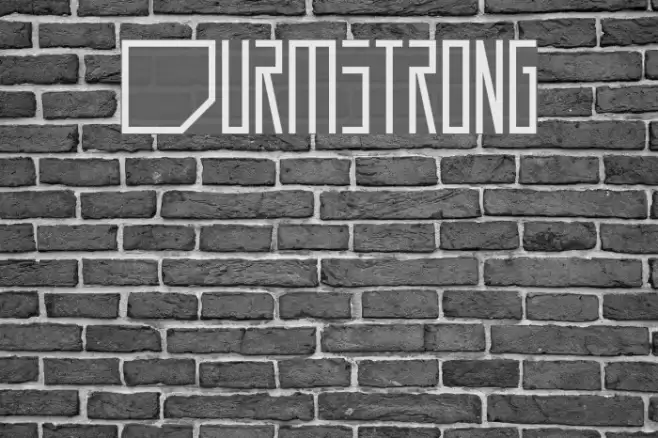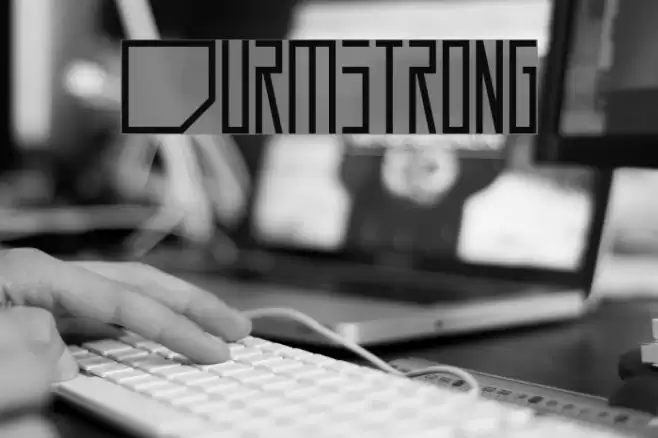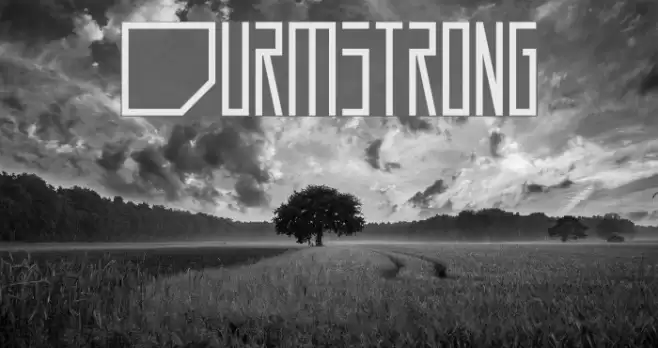
Durmstrong Font
Durmstrong Description
This font features a geometric and futuristic design with a distinct angular style. The characters are constructed with straight lines and sharp angles, giving it a modern and technical appearance. The uppercase letters are uniform in height, while the lowercase letters maintain a consistent style with slightly reduced size. Numbers and special characters follow the same angular theme, ensuring a cohesive look across all glyphs. The font's unique structure makes it stand out, suitable for projects that require a contemporary and edgy aesthetic.
A geometric, angular font with a futuristic and technical style from Uncategorized fonts.
- Proposed Projects: Ideal for technology branding, sci-fi posters, video game titles, and modern art projects.